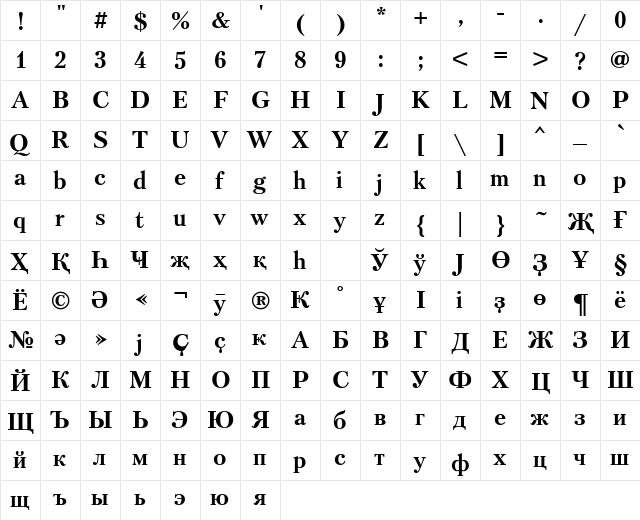
PetersburgITT Bold
| Foundry | ParaGraph |
Design Context for PetersburgITT Typeface
PetersburgITT takes a measured approach to typography — its balanced proportions and neutral character make it a reliable workhorse for both digital and print work. Its bold stroke weight gives it real presence on the page.